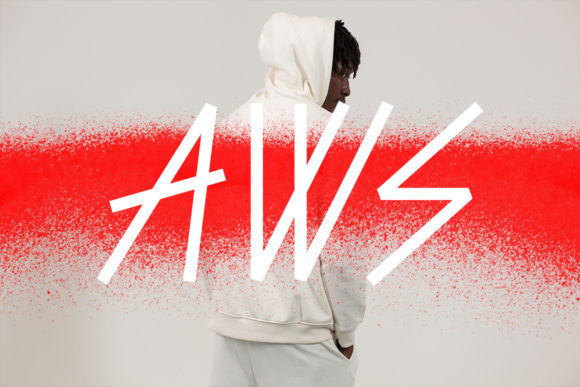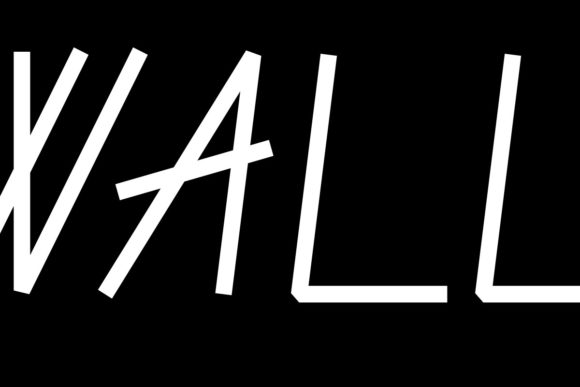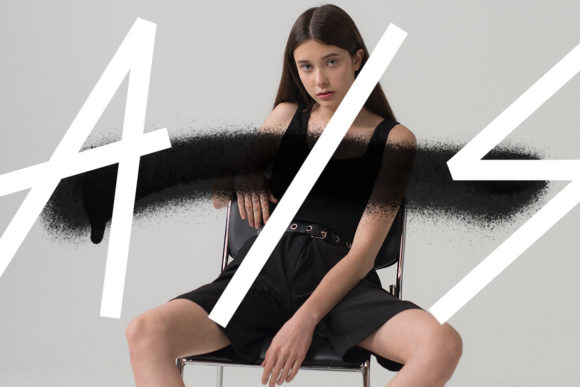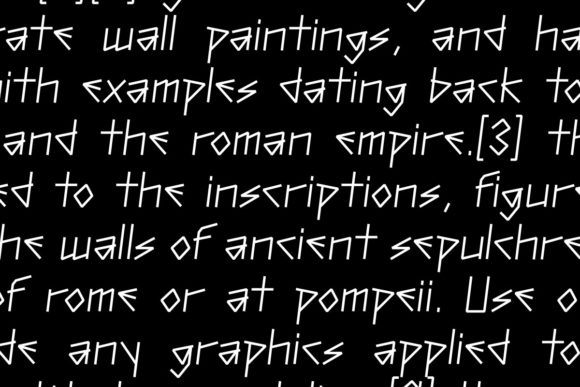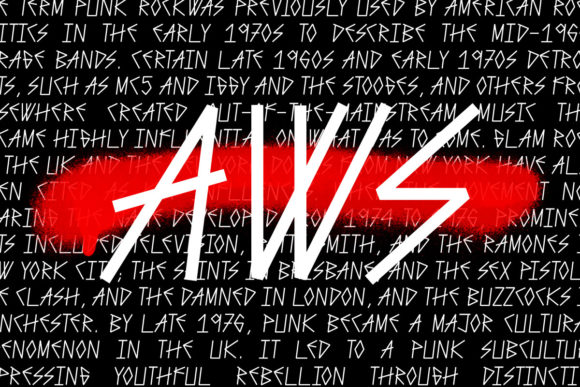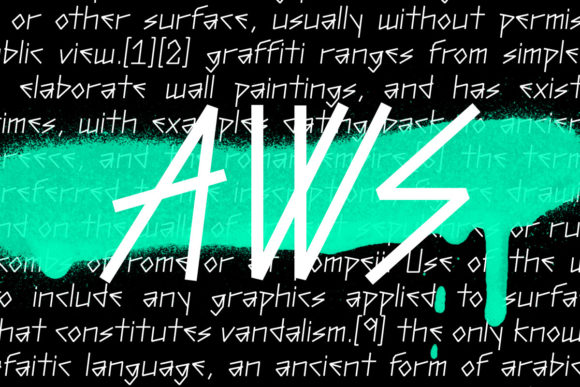
AWS Font: Elevate Your Designs with a Modern Urban Display Typeface
In the world of typography, a font can make or break a design. For designers and crafters looking to add a touch of modern urban flair to their projects, the AWS Font is an excellent choice. This versatile display typeface is perfect for titles, logotypes, monograms, short texts, and more. In this article, we’ll dive into the features and benefits of the AWS Font and explore how it can elevate your creative projects.
What is AWS Font?
AWS Font is a modern urban display typeface designed to make a statement. Its sleek lines, bold shapes, and contemporary aesthetic make it perfect for designs that require a touch of sophistication and edge. Whether you’re working on a logo, brochure, or website, the AWS Font is sure to grab attention and leave a lasting impression.
Key Features of AWS Font
- Modern Urban Aesthetic: The AWS Font boasts a fresh, modern look that’s perfect for urban-inspired designs.
- Versatile: Use it for titles, logotypes, monograms, short texts, and more.
- Highly Legible: The font’s clear and clean lines ensure excellent readability, even at smaller sizes.
- Customizable: The AWS Font comes with multiple weights and styles, allowing you to tailor it to your design needs.
Benefits of Using AWS Font
So, why choose the AWS Font for your next project? Here are just a few benefits:
- Stand Out: The AWS Font’s unique design ensures your project will stand out from the crowd.
- Professional Look: The font’s modern aesthetic and clean lines give your design a professional, polished look.
How to Use AWS Font in Your Designs
Ready to add the AWS Font to your project? Here are some ideas to get you started:
- Logos and Branding: Use the AWS Font to create a bold, memorable logo that reflects your brand’s personality.
- Headings and Titles: Add a touch of modern style to your headings and titles with the AWS Font.
- Monograms and Icons: The font’s clean lines and simple shapes make it perfect for creating stylish monograms and icons.
- Short Texts and Captions: Use the AWS Font to add a pop of personality to your short texts and captions.
Tips and Tricks for Getting the Most Out of AWS Font
To make the most of the AWS Font, try these expert tips:
- Experiment with Weights and Styles: Mix and match different weights and styles to create visual interest and hierarchy.
- Play with Color: The AWS Font looks great in bold, bright colors – don’t be afraid to get creative!
- Combine with Other Fonts: Pair the AWS Font with complementary fonts to create a unique and eye-catching design.
The AWS Font is a versatile and stylish display typeface that’s perfect for designers and crafters looking to add a touch of modern urban flair to their projects. With its sleek lines, bold shapes, and highly legible design, it’s an excellent choice for titles, logotypes, monograms, short texts, and more. Whether you’re a seasoned designer or just starting out, the AWS Font is sure to elevate your creative projects and help them stand out.